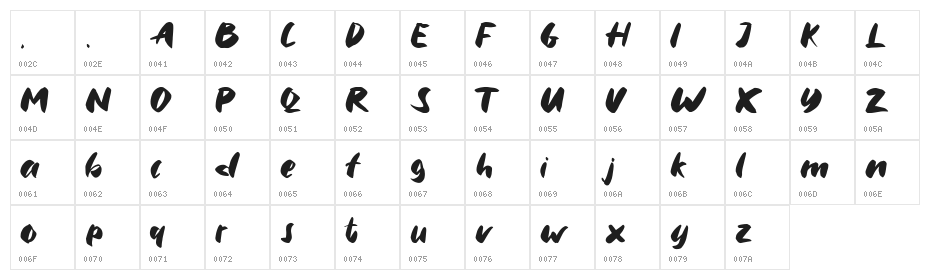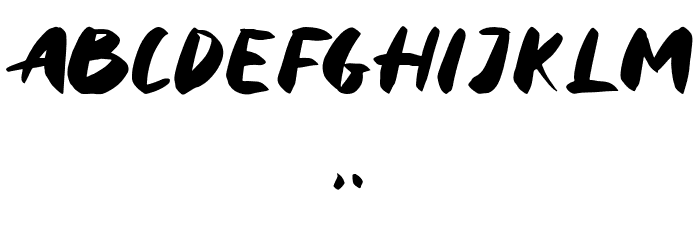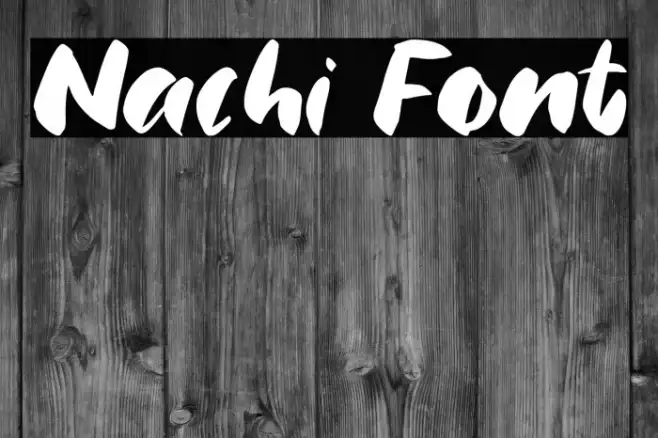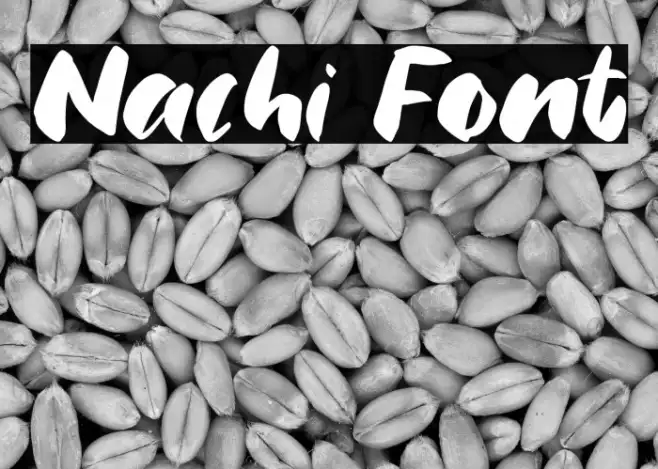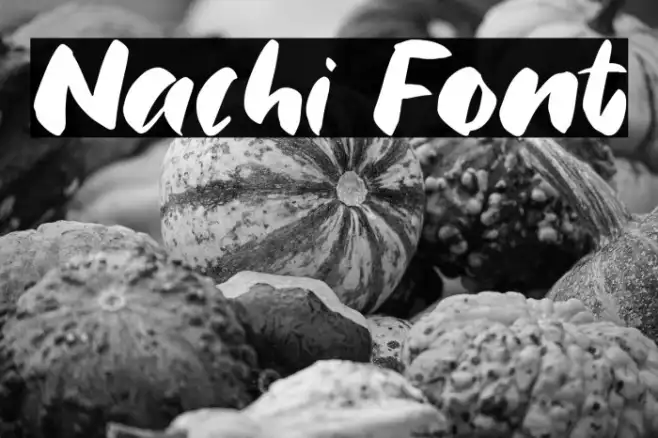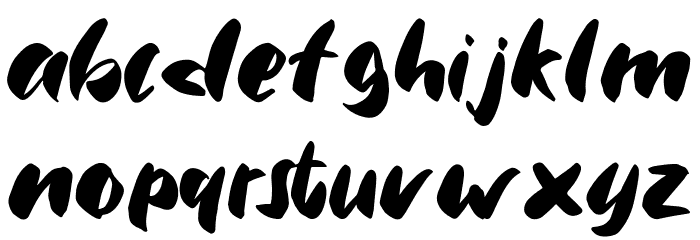
Nachi Font
Nachi Description
This font features a bold, expressive style with a hand-painted appearance. The strokes are thick and dynamic, giving it a lively and energetic feel. Each letter is uniquely crafted, with slight variations that add to its organic and artistic look. The uppercase letters are bold and commanding, while the lowercase letters maintain a consistent flow, enhancing the font's overall cohesiveness. The font's brush-like texture and irregular edges contribute to its handcrafted aesthetic, making it ideal for creative and artistic projects.
| Use Case | Logos, Headlines, Posters |
| Proposed Projects | Ideal for artistic projects, branding, posters, and invitations where a bold, creative touch is desired. |